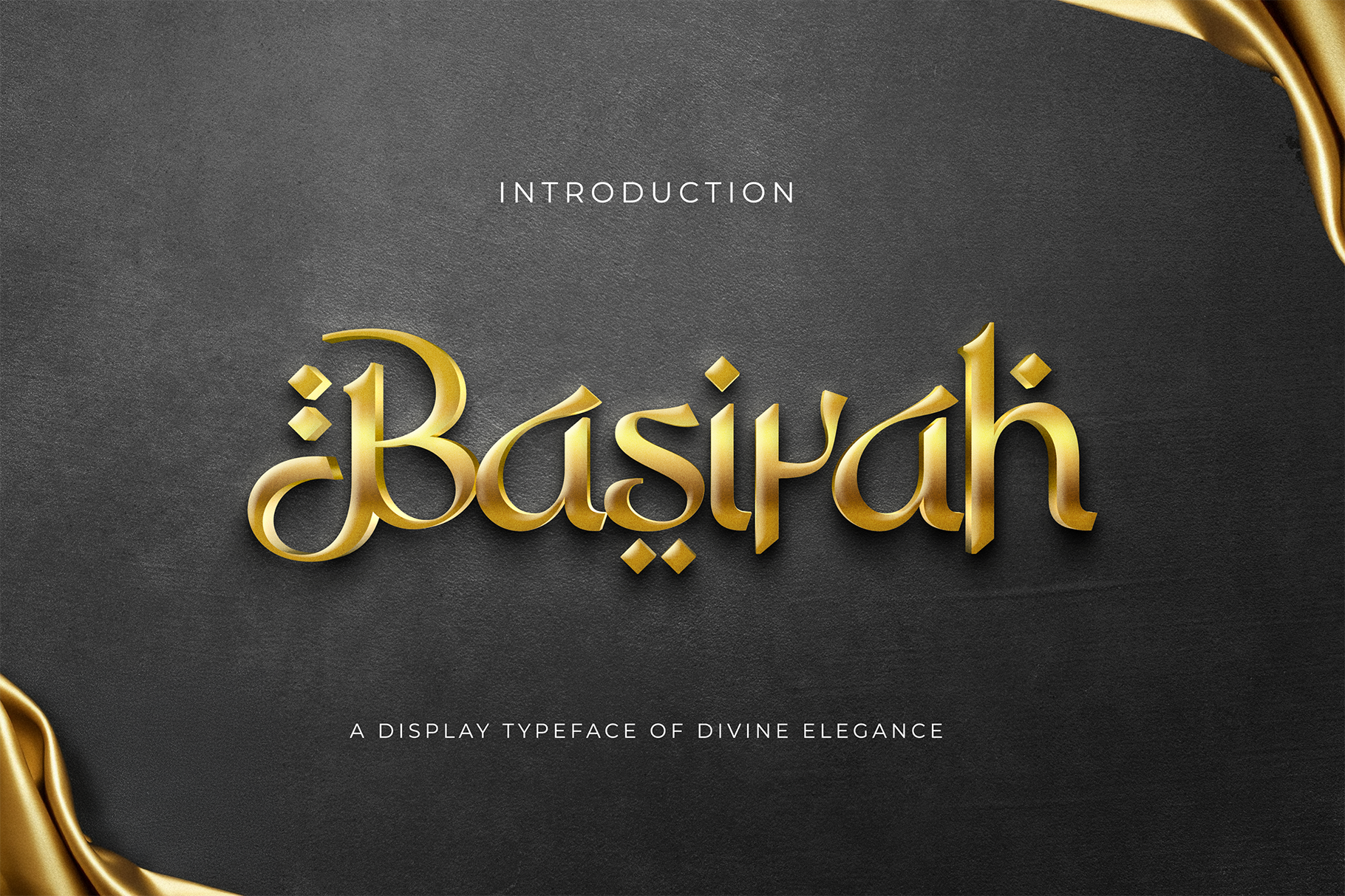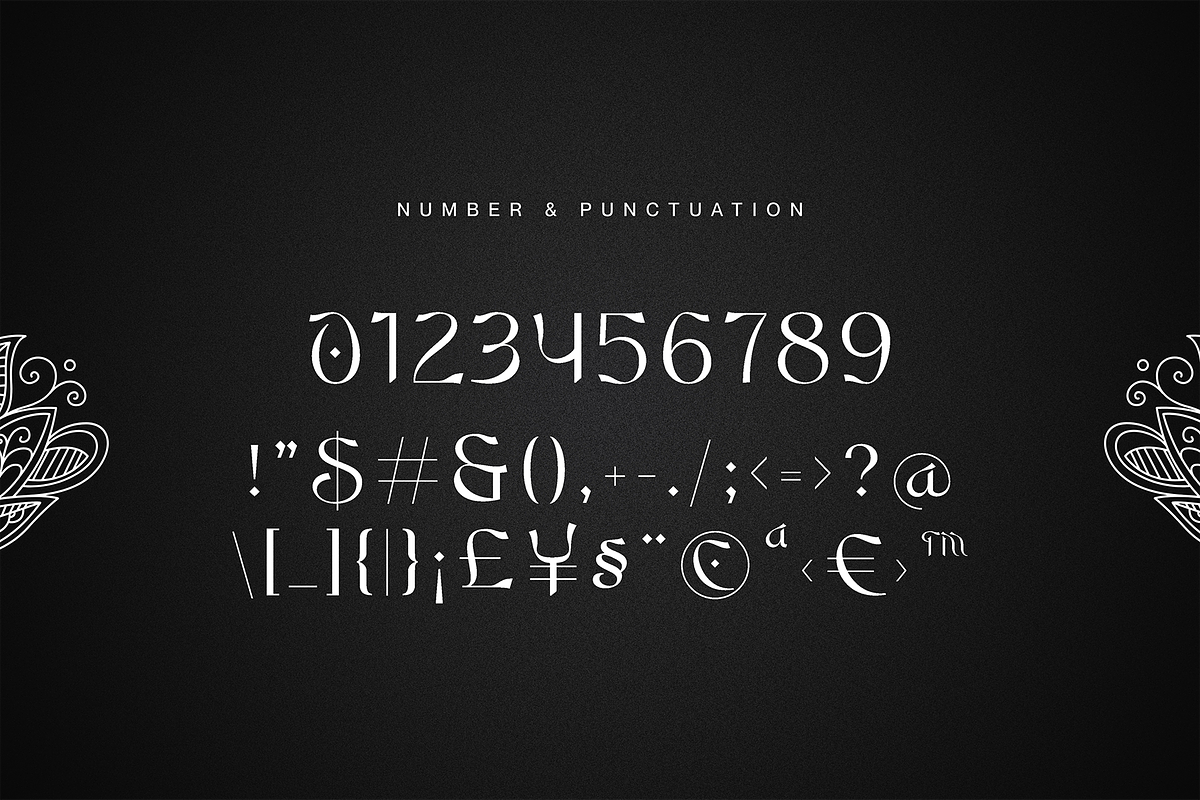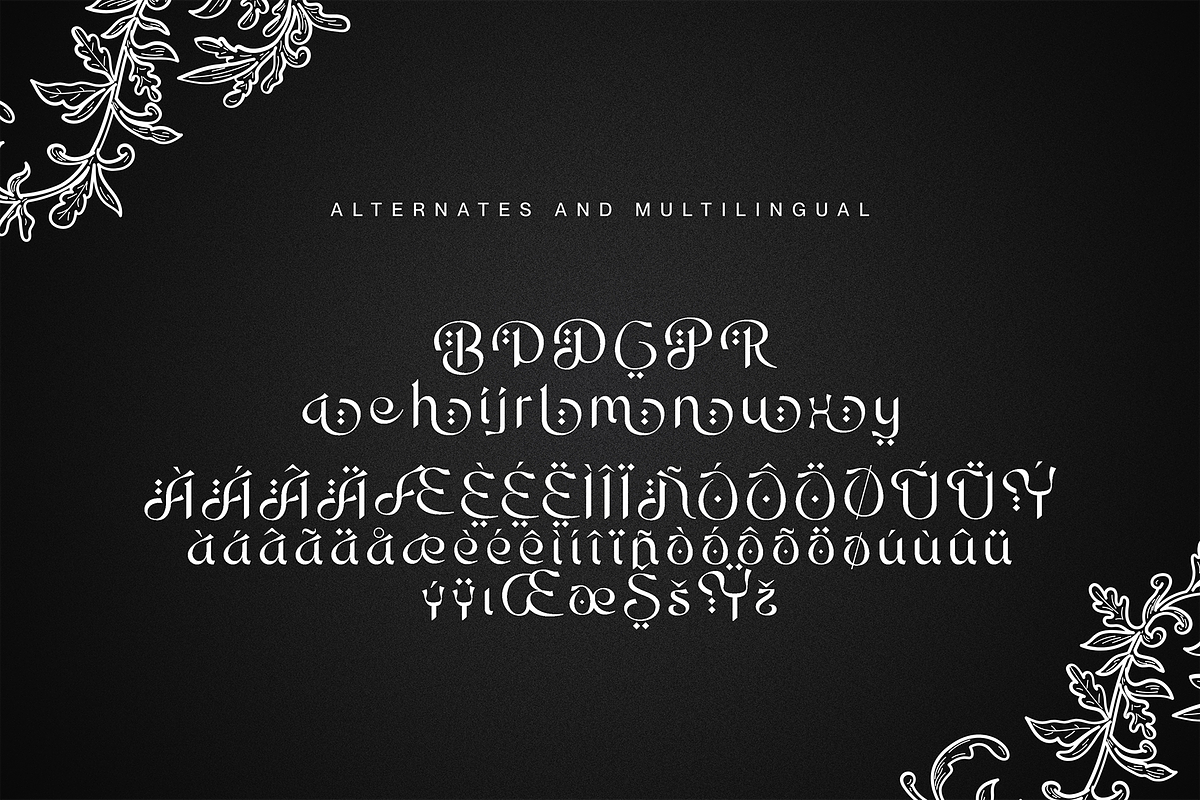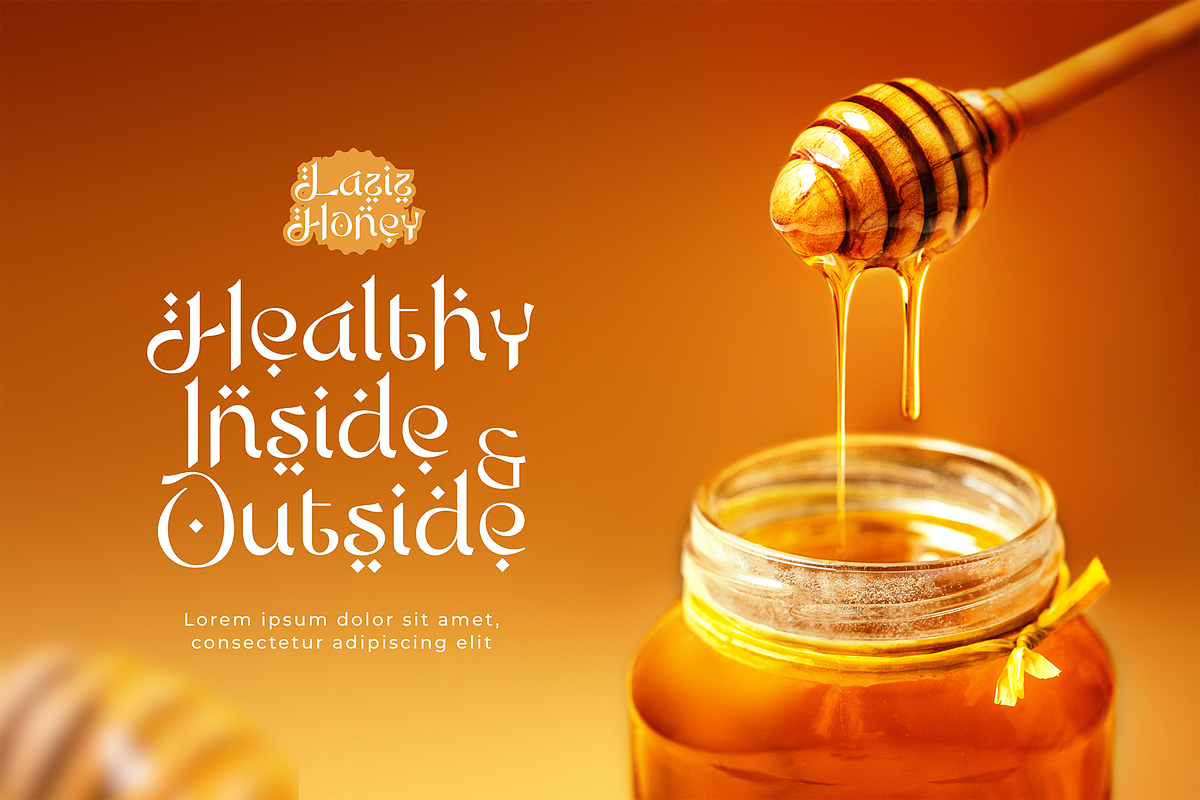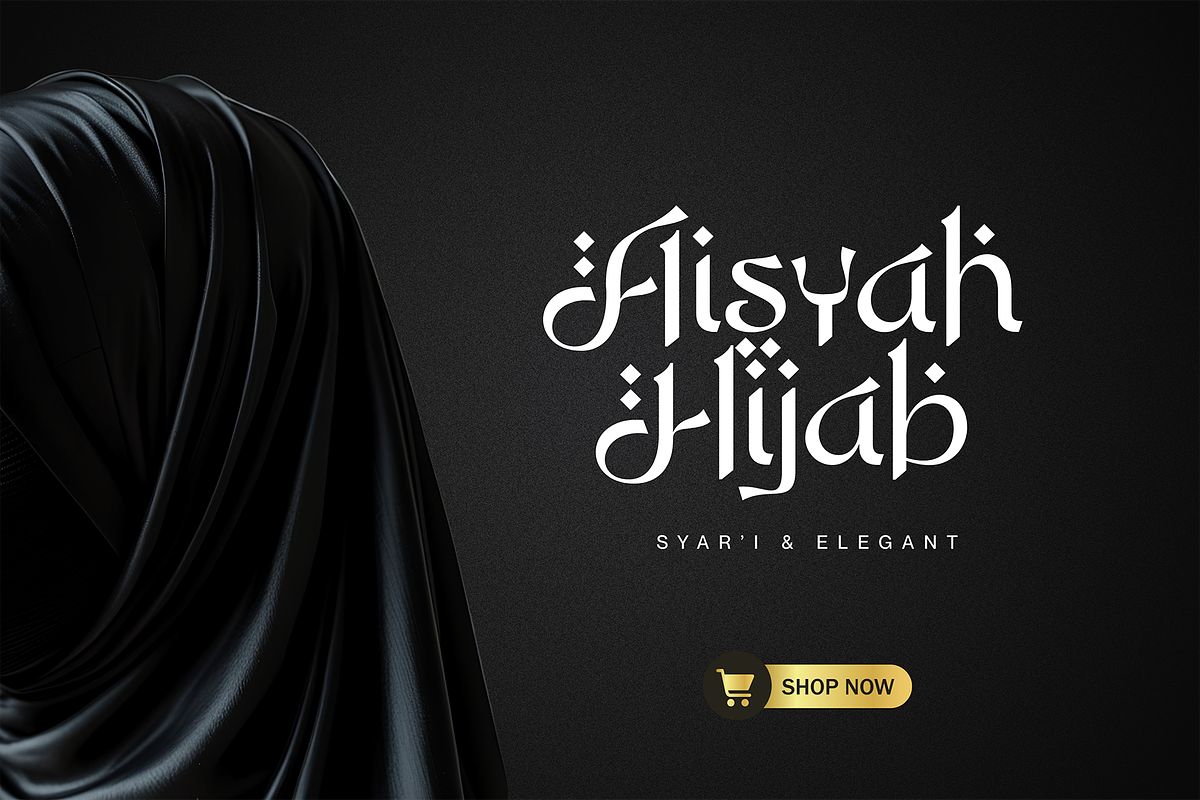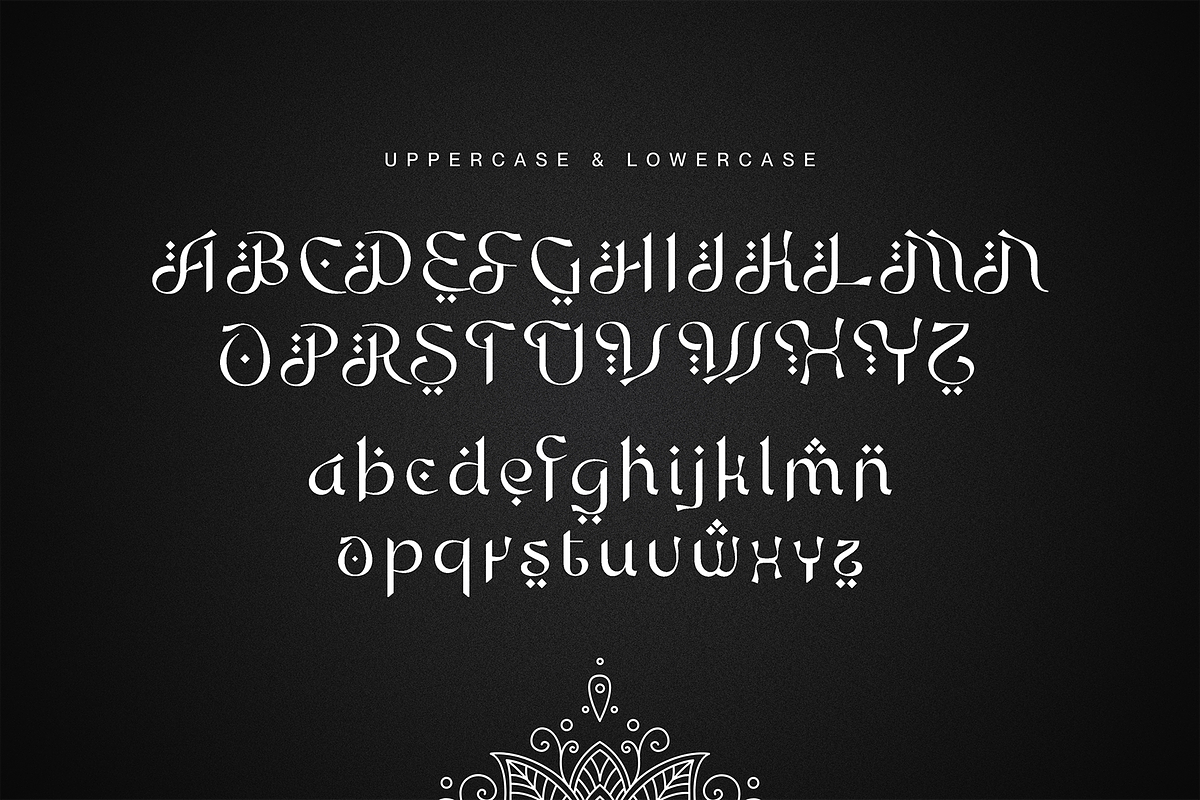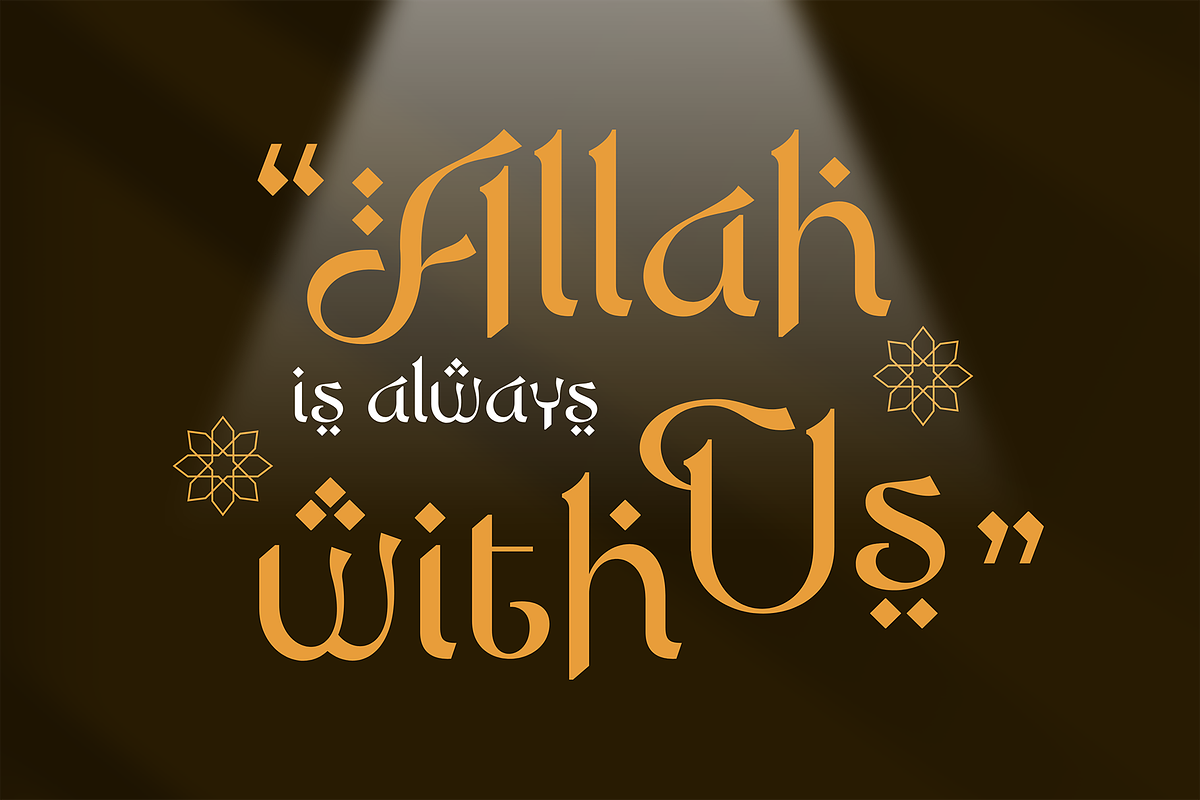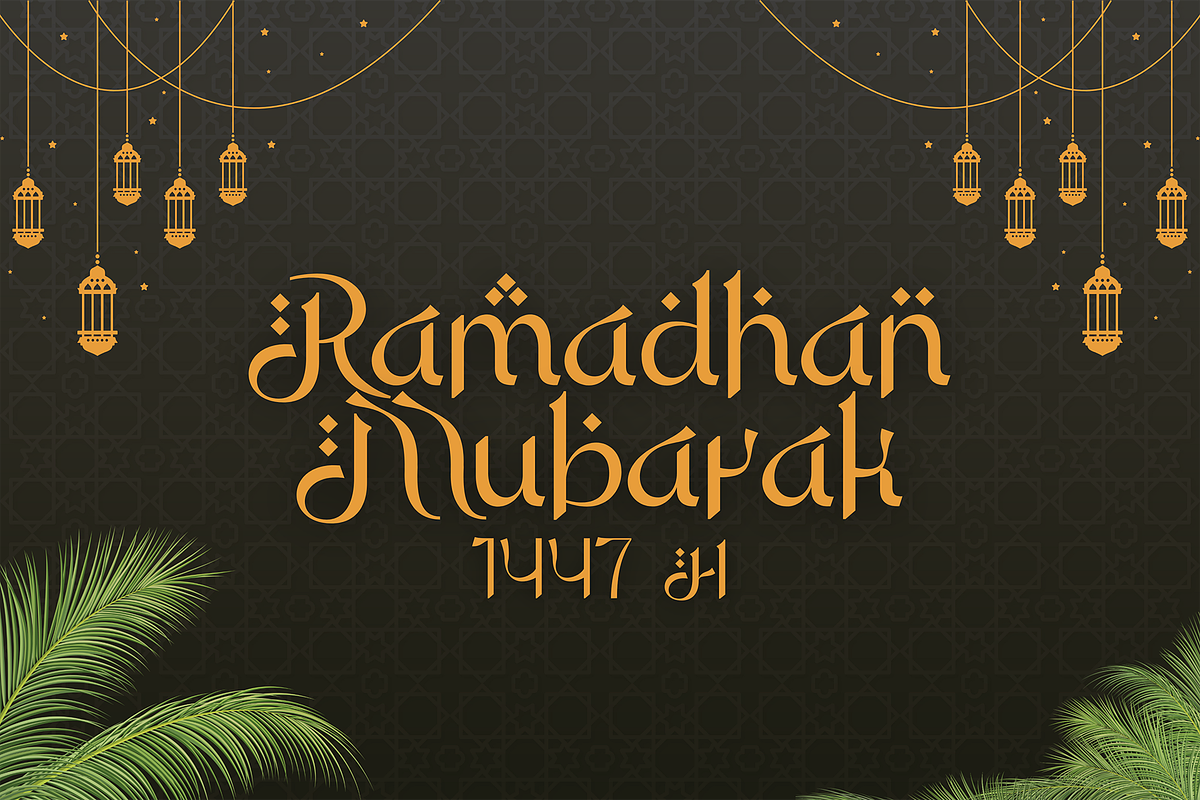
Basirah Elegant Arabic Font
Basirah Elegant Arabic Font Basirah Arabic Font is a unique, modern display font with a unique, elegant, and modern style. It is a sans serif font perfect for branding projects, logos, social media posts, product packaging, labels, etc. What’s included : - Basirah Arabic Fonts (otf, ttf) - Character Set - Uppercase and Lowercase - Numeral and Punctuation Thank you for choosing our font.